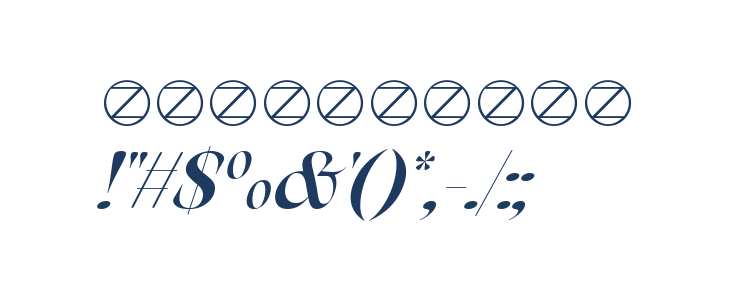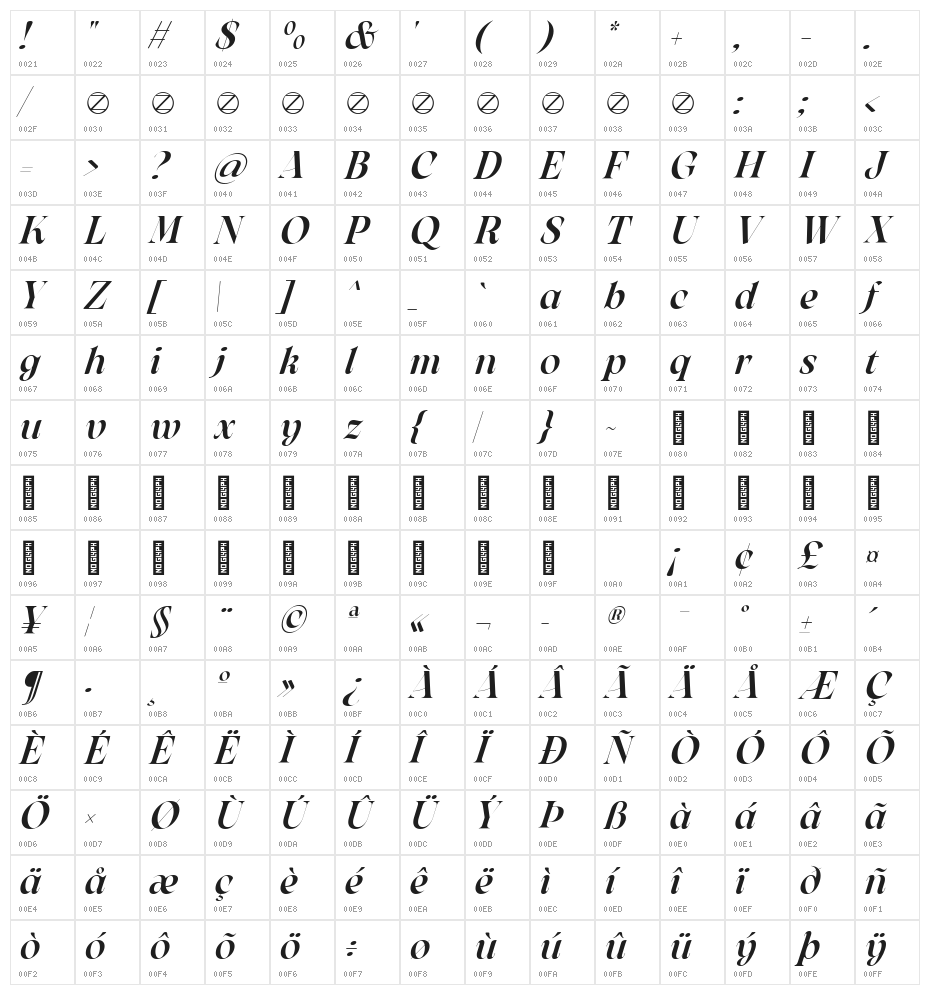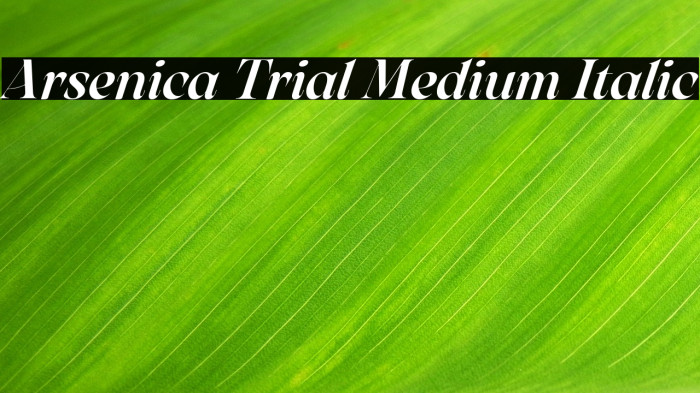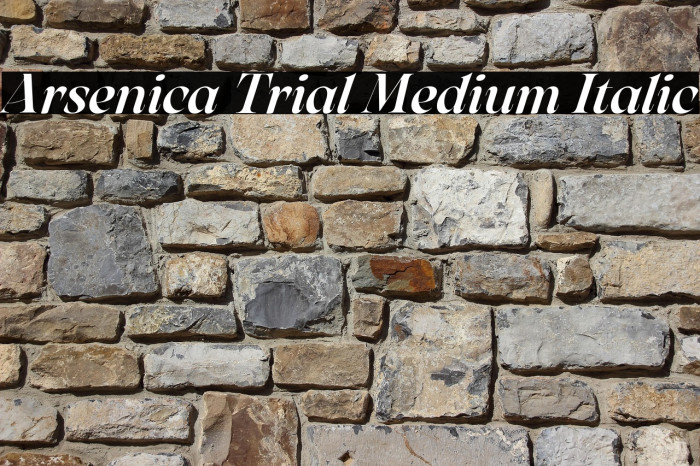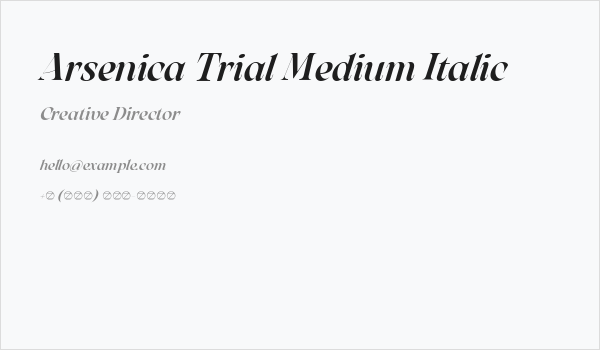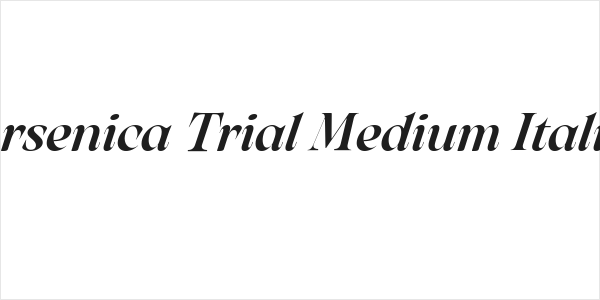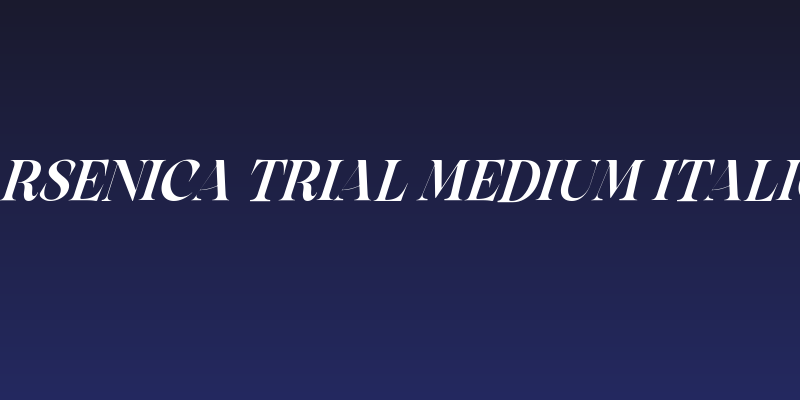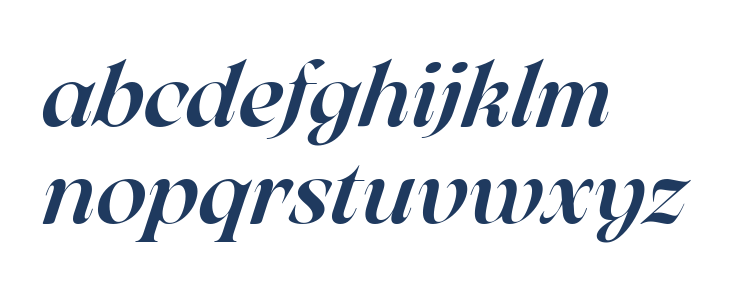
Arsenica Trial Medium Italic Font
Arsenica Trial Medium Italic Description
This font features an elegant and sophisticated italic style, characterized by its smooth and flowing letterforms. The strokes are moderately thick, providing a medium contrast that enhances readability while maintaining a stylish appearance. The uppercase letters exhibit a refined slant, adding a dynamic and graceful touch. The lowercase letters follow suit with a consistent slant, creating a harmonious and cohesive look. The numerals and special characters are designed to complement the overall aesthetic, ensuring versatility across various applications. The font's design is both modern and timeless, making it suitable for a wide range of creative projects.
| Proposed Projects | Ideal for branding, editorial design, invitations, and elegant packaging. |